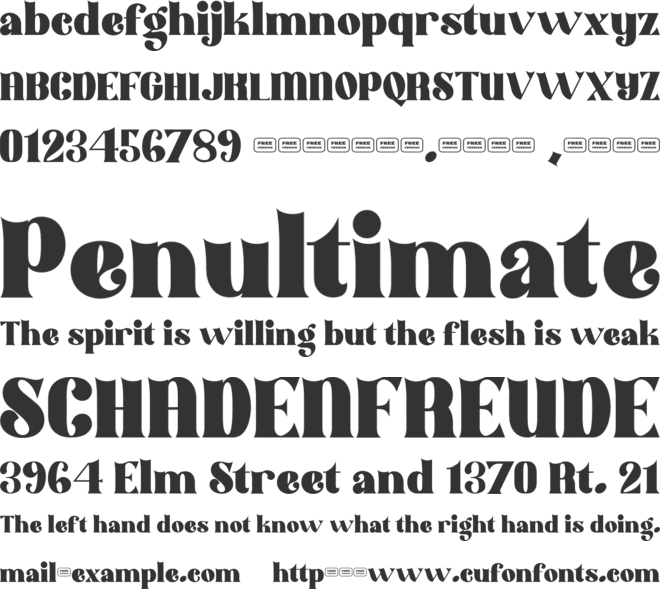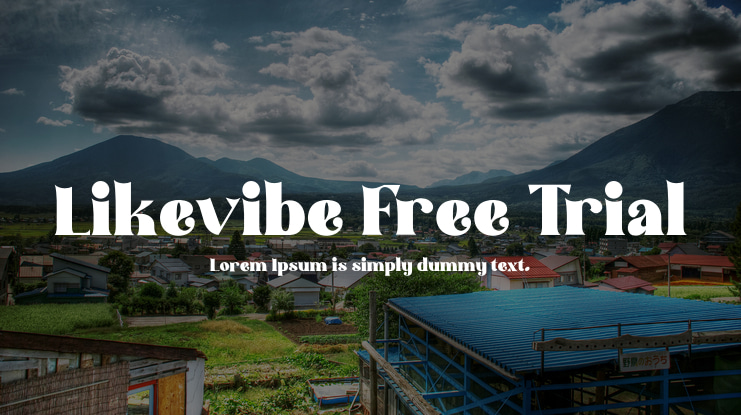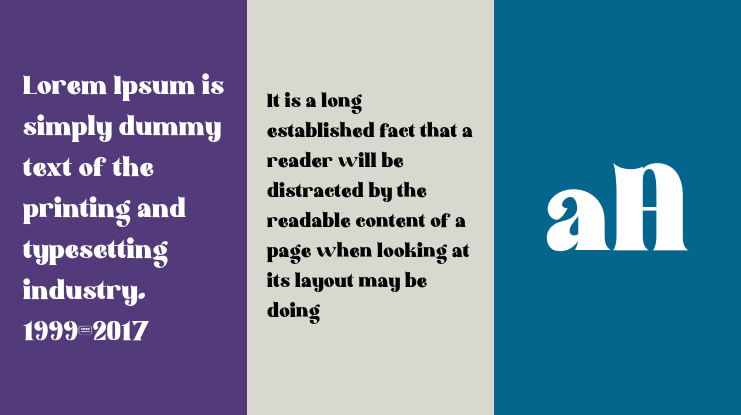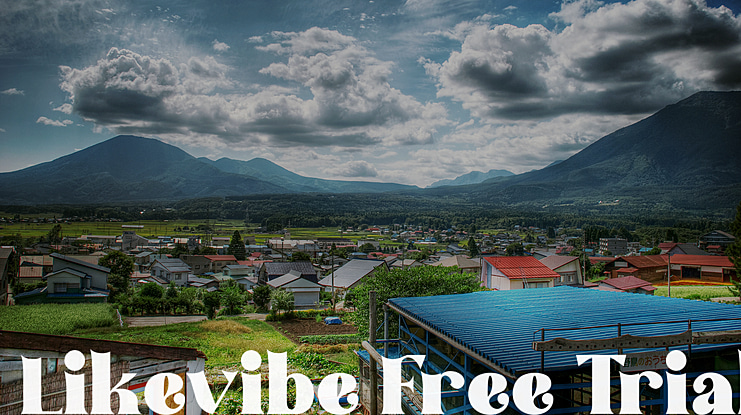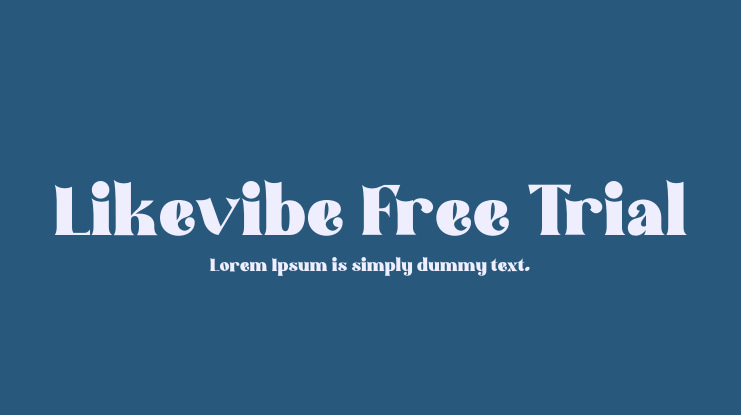
Likevibe Free Trial Font
If you’re looking for a retro and unique font (One which will bring all sorts of happiness to any project) this Likevibe font is just for you.
It combines a sense of classic, cuteness, elegance and vintage which makes it distinctive enough to give any project life and energy.